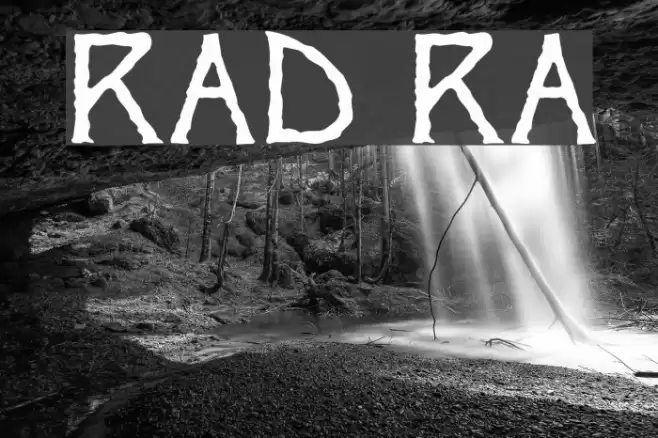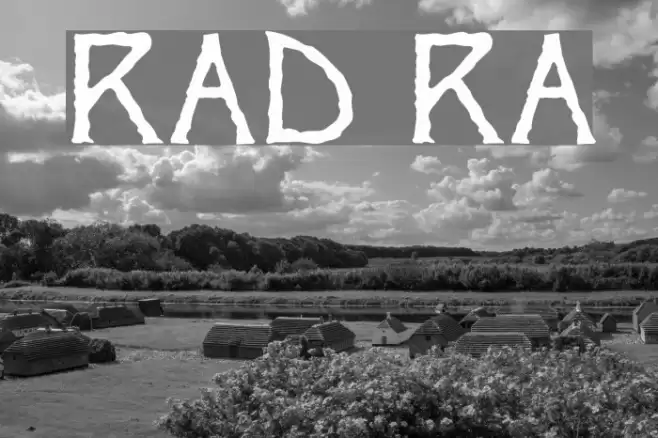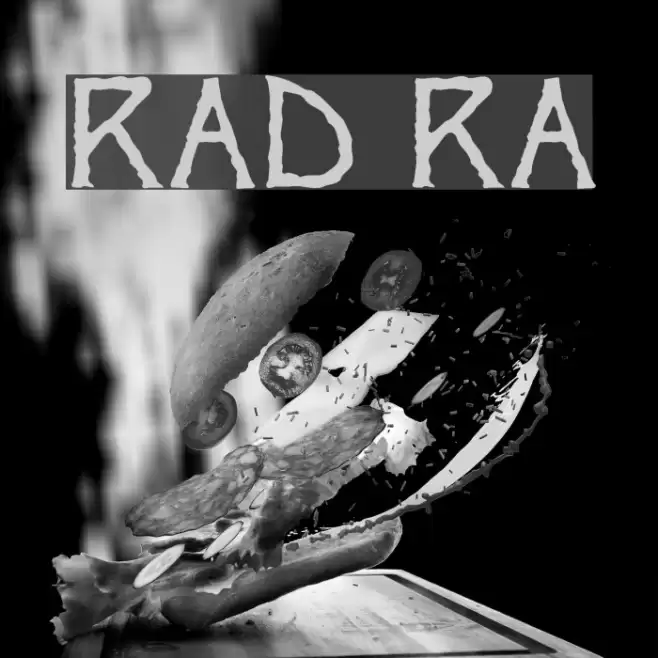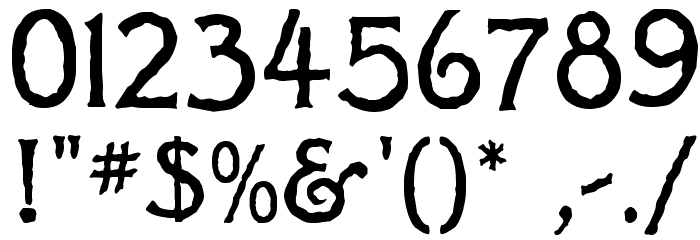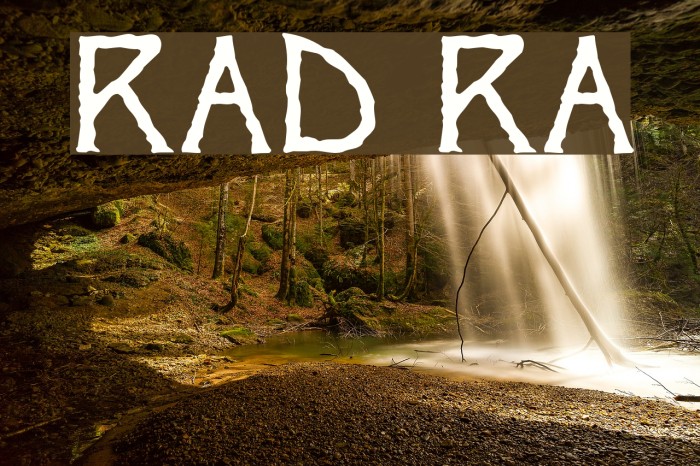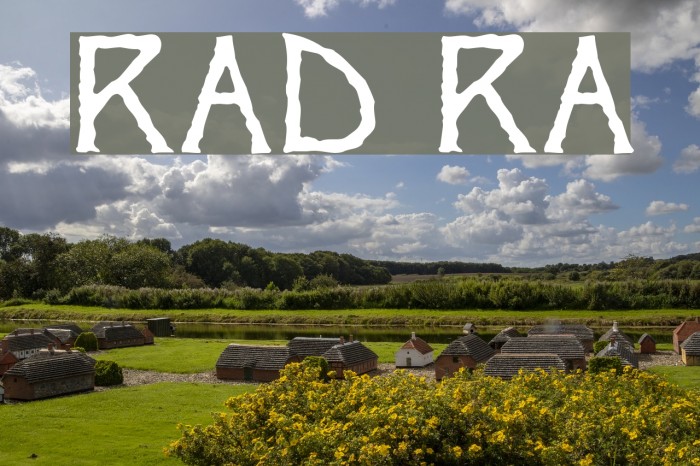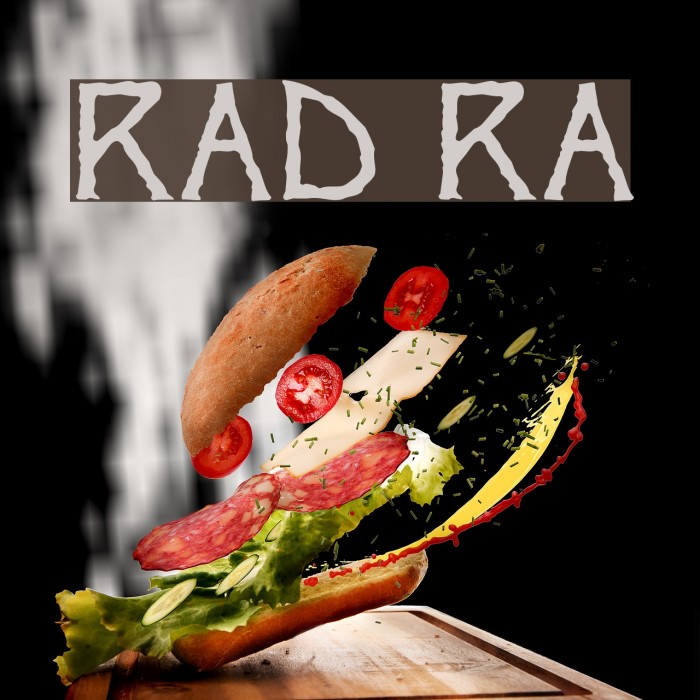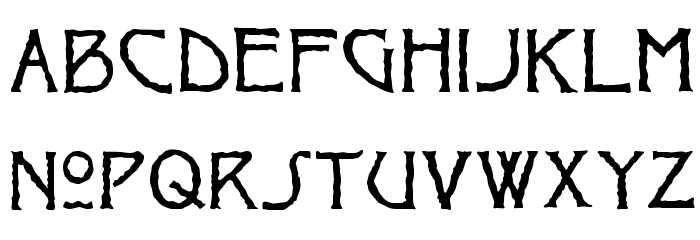
Ragged Regular Font
Ragged Regular Description
This font features a rugged, distressed appearance with uneven edges and a hand-drawn quality. The characters have a rough texture, giving them a unique, organic feel. The uppercase and lowercase letters maintain a consistent style, with varying stroke widths that add to the font's dynamic character. The numbers and special characters follow the same design, ensuring a cohesive look across all glyphs. This font is perfect for projects that require a touch of rustic charm or a vintage aesthetic.
A rugged, distressed font with a hand-drawn, organic appearance from Halloween fonts.
- Proposed Projects: Ideal for vintage posters, rustic branding, artistic book covers, and creative packaging designs.
- Overall Style: Vintage
- Use Case: Logos, Headlines, Artistic projects